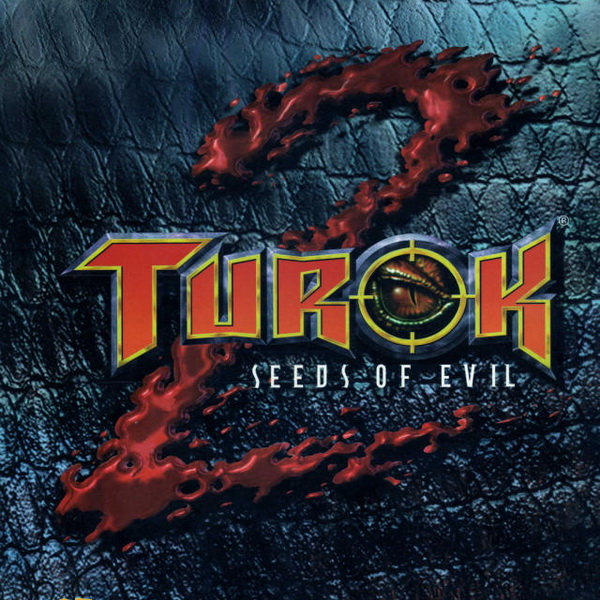
Turok Font
ActionTurok is a first-person shooter video game series developed by Acclaim Entertainment and later by other studios. The storyline follows a Native American warrior named Turok who battles against various enemies, including dinosaurs and other creatures, in a prehistoric world.
The logo font resembles the Turok font created by Neale Davidson, featuring exclusively uppercase letters and punctuation. The font is downloadable at no cost from the Fonts Used section.